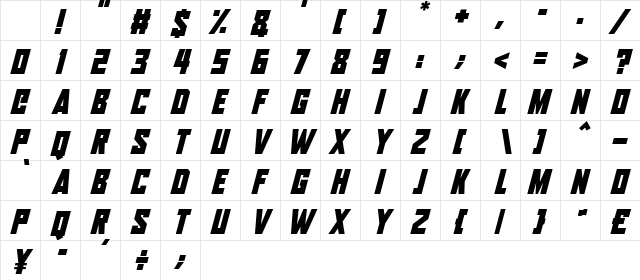
Complete Aliens Among Us Italic glyph index. Displaying only characters natively supported by Aliens Among Us Italic font.
Aliens Among Us is a composed and adaptable typeface that performs quietly and consistently across a wide range of design contexts. The slanted form adds forward momentum and visual energy.
Pro Tip: Use Aliens Among Us for emphasis, pull quotes, and subheadings where its slanted energy can add rhythm to the layout.